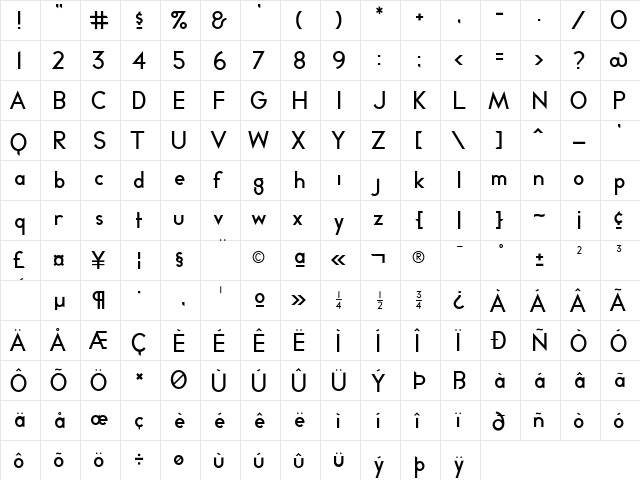
Melvinsans Regular
Design Context for Melvinsans Typeface
Melvinsans is a composed and adaptable typeface that performs quietly and consistently across a wide range of design contexts.